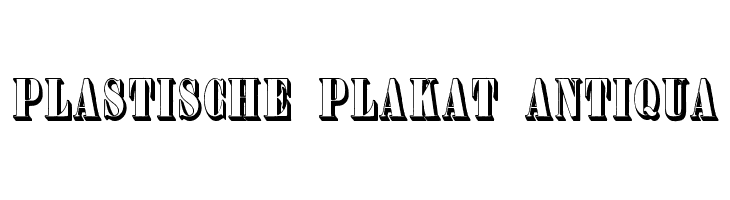
• Plastische Plakat-Antiqua шрифт
A bold, three-dimensional serif font with a striking and modern design.
• PlastischePlakat-Antiqua шрифт
A bold, three-dimensional serif font with a vintage yet modern appeal.